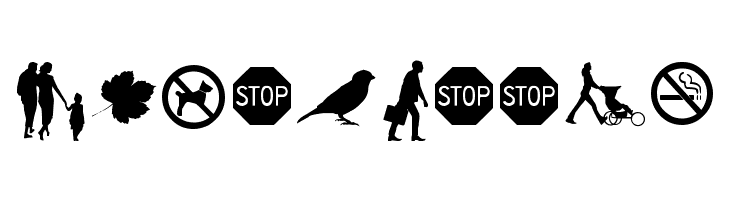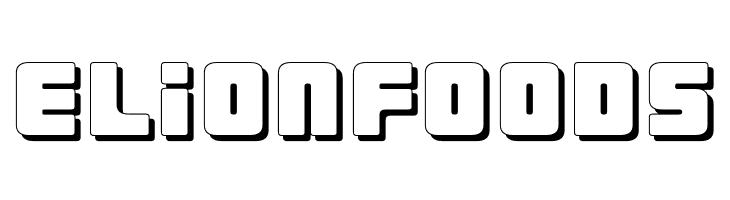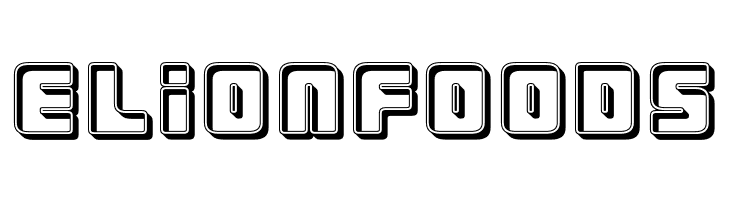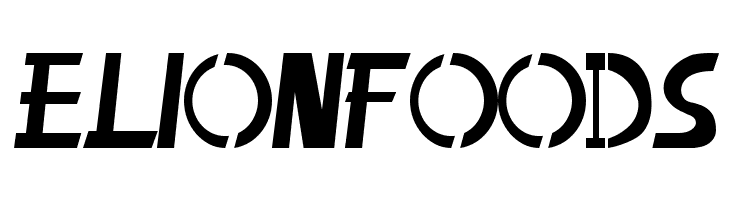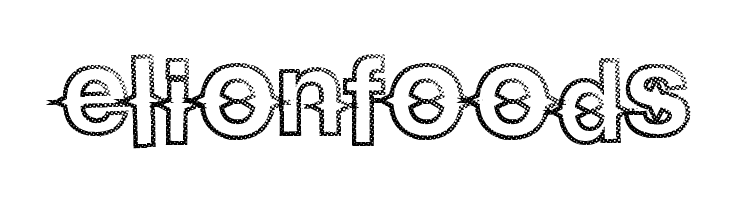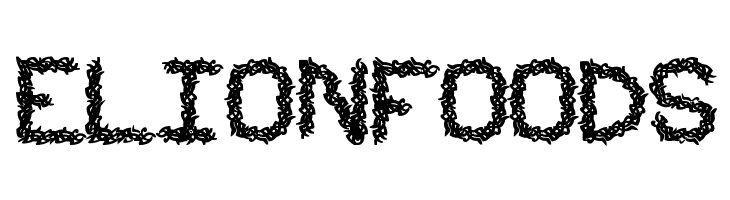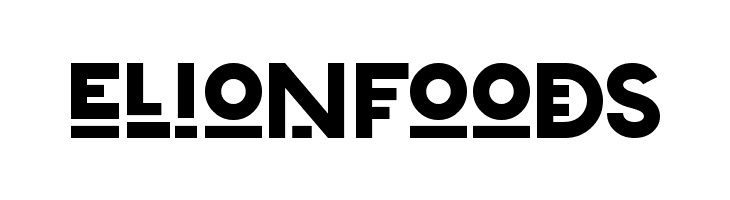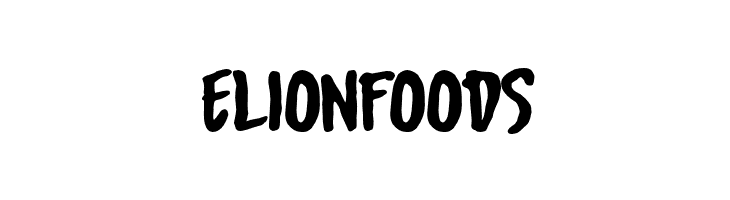
A bold, angular font with a graffiti-inspired, urban aesthetic.
Urban, graffiti-inspired dingbat font with city and fast food motifs.
Bold, angular graffiti-inspired font with a dynamic urban style.
A bold, graffiti-inspired font with blocky, angular characters and a rebellious urban style.
A bold, textured font with a brick wall pattern, ideal for urban-themed designs.
A bold, architectural font with urban, building-like elements and a strong visual impact.
A bold, brush-style font with dynamic, expressive strokes.
A bold, distressed font with an urban, graffiti-like texture.
A bold, three-dimensional graffiti-style font with an edgy, urban feel.
A bold, distressed font with a splatter effect, ideal for urban and edgy designs.
A bold, urban-style font with a dripping cityscape effect.
A rugged, distressed font with a bold, urban aesthetic.
A bold, distressed font with an urban, gritty aesthetic.
A bold, graffiti-inspired font with a playful, urban aesthetic and dripping patterns.
A bold, distressed font with a gritty, urban aesthetic.
A bold, graffiti-inspired font with a dripping, urban style.
A gritty, stencil-style font with a distressed, urban appearance.
A bold, graffiti-inspired font with sharp angles and an urban aesthetic.
A bold, geometric font with a two-tone striped effect.
A bold, angular font with a dynamic, slanted style.
A bold, condensed, and italicized font with a modern, dynamic style.
A bold, geometric font with a futuristic and industrial design.
A bold, condensed font with geometric shapes and a modern look.
A bold, graffiti-style font with a dripping paint effect, perfect for urban-themed designs.
A bold, distressed font with a gritty, urban style.
A bold, distressed font with a rugged, urban aesthetic.
A bold, graffiti-inspired font with a dynamic and urban style.
A bold, edgy font with sharp angles and an urban flair.
A bold, graffiti-inspired font with a playful, urban style.